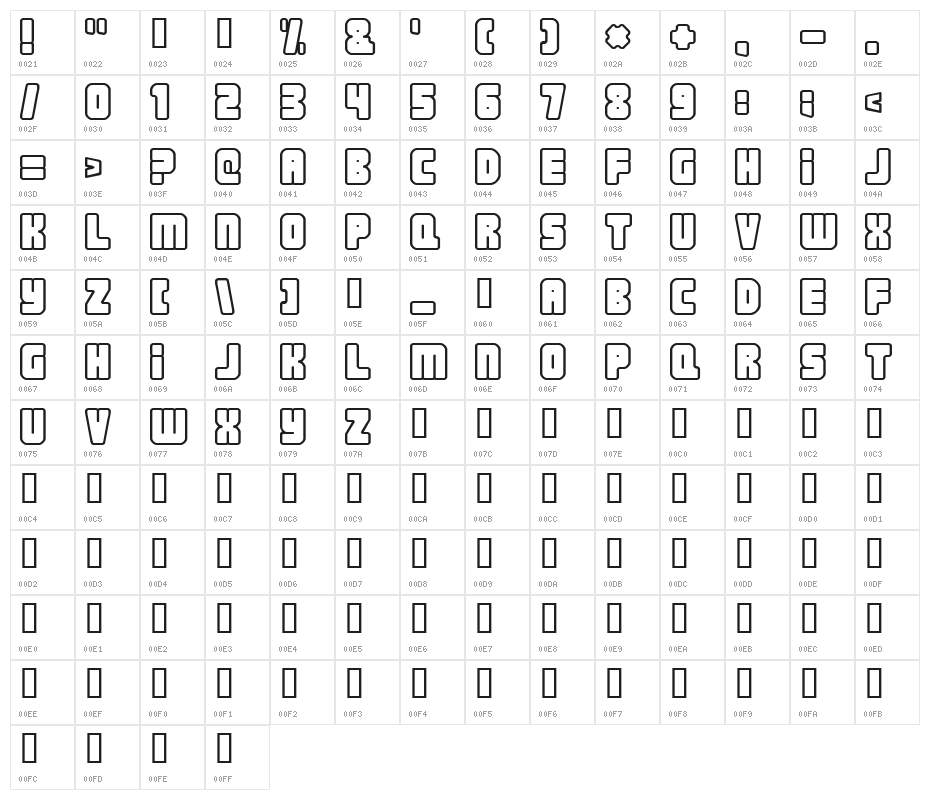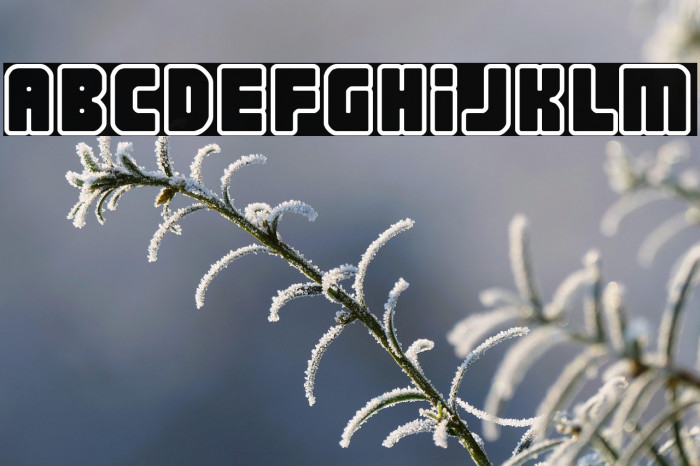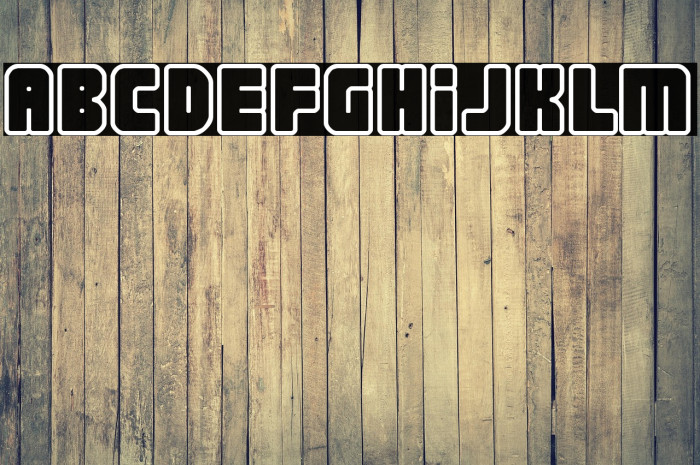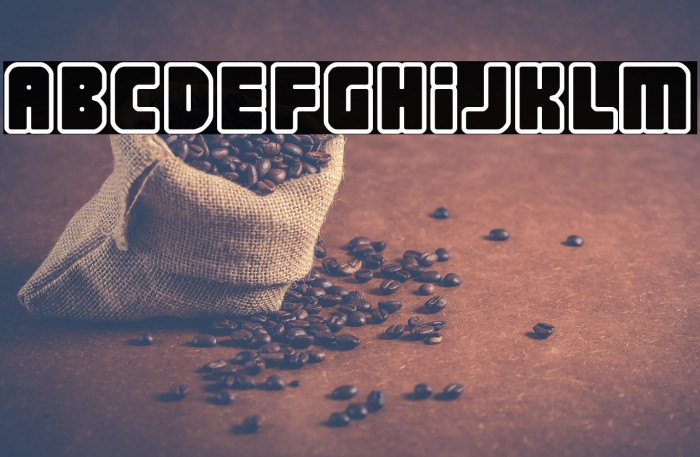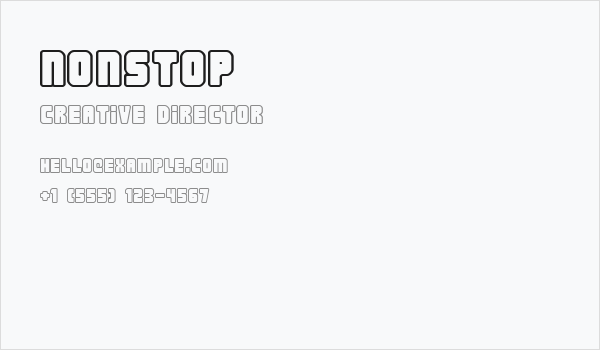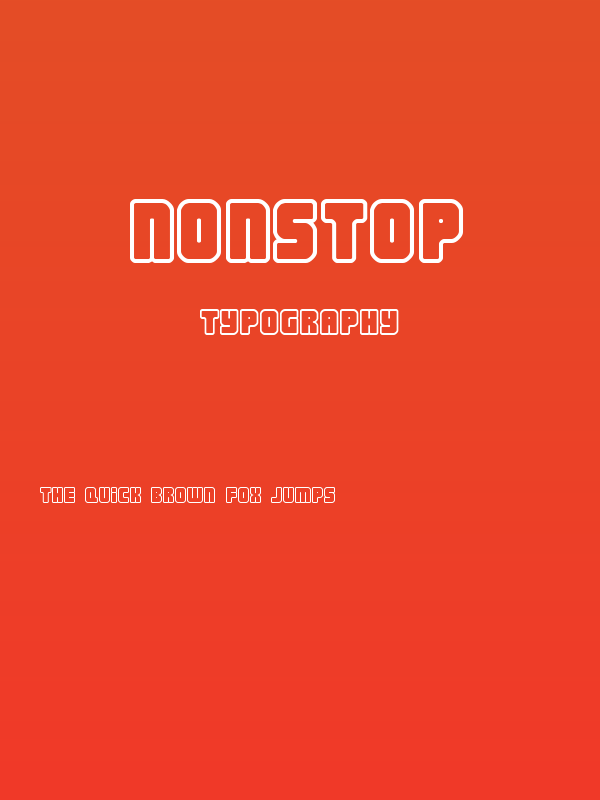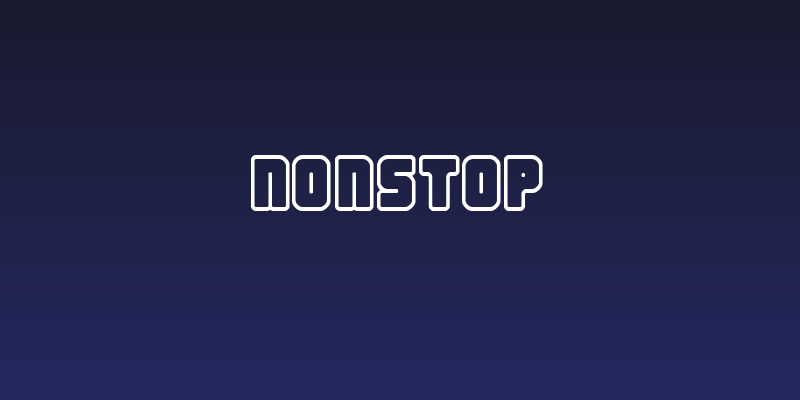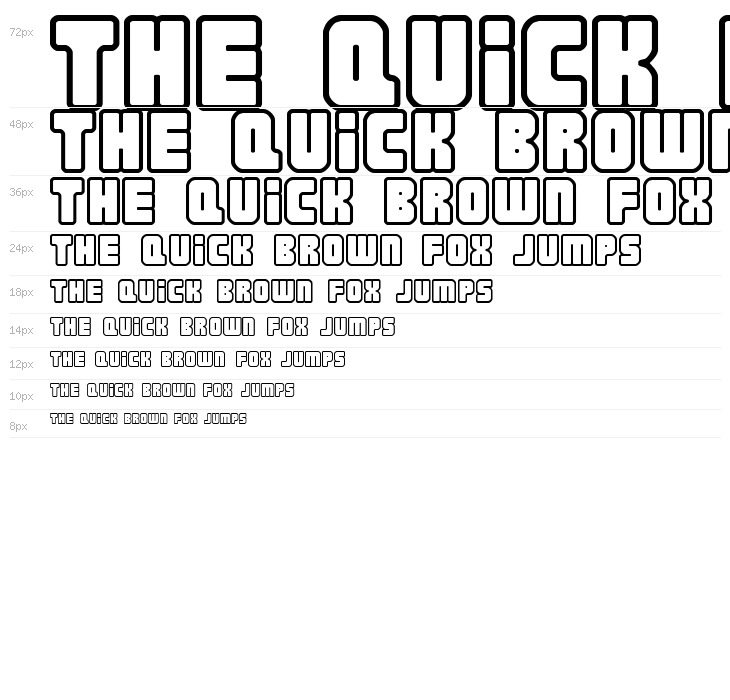
Nonstop Font
Nonstop Description
This font features a bold, geometric design with a distinct outline style. Each character is crafted with uniform thickness and rounded corners, giving it a modern and playful appearance. The uppercase and lowercase letters maintain a consistent height, enhancing readability while adding a unique visual appeal. The numerals and special characters follow the same design principles, ensuring a cohesive look across all text elements. This font's strong presence and clear structure make it suitable for various creative applications.